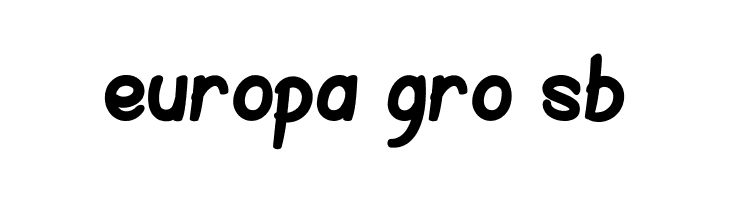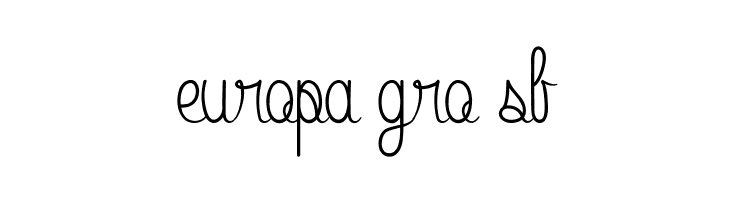
A decorative blackletter font with bold, intricate letterforms.
An oblique serif font with medium weight and elegant, angular serifs.
A bold, textured font with a hand-drawn, organic feel and playful, irregular edges.
A bold, elegant script font with ornate swashes and flowing curves.
A bold, decorative script font with elegant loops and swirls.
A playful, handwritten font with a whimsical and casual style.
A playful, handwritten font with rounded edges and a whimsical style.
A playful, rounded font with a handwritten touch, perfect for informal projects.
A playful, casual handwritten font with smooth, rounded lines.
A modern, rounded sans-serif font with excellent readability and balanced medium weight.
A modern, high-contrast font with elegant and sophisticated styling.
A bold, decorative font with vintage flair and intricate detailing.
A playful, hand-drawn font with a whimsical and informal style.
A playful, handwritten font with tall, narrow letters and a casual style.
A playful, hand-drawn font with a doodle-like, artistic style.
A geometric, hollow font with a futuristic and abstract design.
A bold, geometric font with unique cut-out shapes and a modern, decorative style.
A modern, geometric sans-serif font with uniform strokes and high legibility.
A clean, geometric sans-serif font with a modern and balanced design.
A bold, playful handwritten font with a lively and informal style.
A decorative font using ASCII art and emoticon-style glyphs.
A modern, rounded sans-serif font with clean lines and balanced proportions.
A playful, bold font with a hand-drawn, vintage typewriter style.
A cursive, handwritten-style font with smooth, flowing characters.
A bold, handwritten font with smooth, flowing curves and a casual elegance.
A handwritten, cursive font with smooth, flowing lines and a personal touch.
A playful, handwritten font with bold, rounded strokes and a whimsical feel.
An elegant and whimsical decorative font with intricate line work and playful curls.
A modern, geometric font with clean lines and a structured appearance.
A modern, italic font with geometric precision and a dynamic slant.
A modern, italicized font with a futuristic and streamlined design.